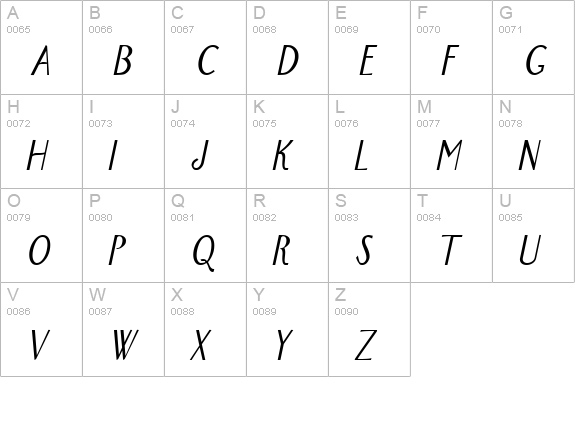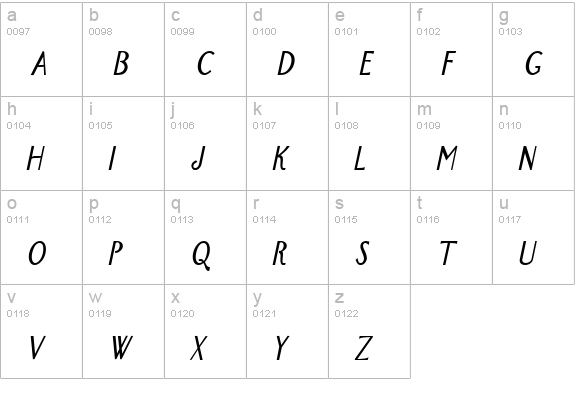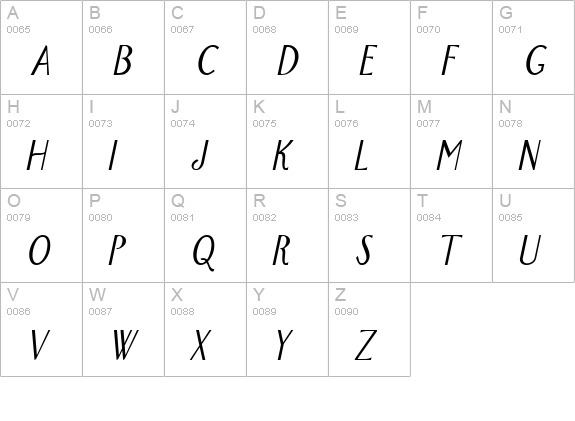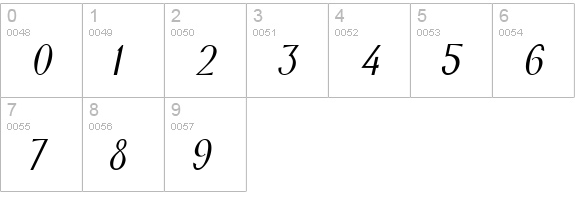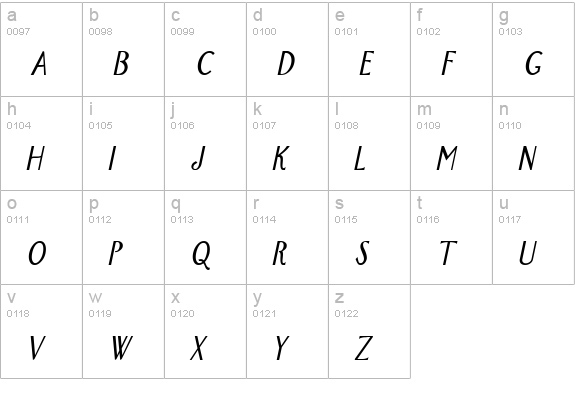
New York-Condensed Italic is a distinctive, condensed-width, italic variant in the New typeface family \xE2\x80\x94 well suited to design and typography projects.
Introducing New York-Condensed Italic, a sleek and modern font that exudes sophistication and style. With its elegant slanted design, this typeface is perfect for adding a touch of sophistication to any project. Whether you're designing a logo, creating invitations, or crafting a brand identity, New York-Condensed Italic is sure to make a bold statement. Best of all, this stunning font is available for free download at FontsMarket.com. Don't miss out on the opportunity to enhance your designs with this versatile and eye-catching typeface. Download New York-Condensed Italic today and unleash your creativity!